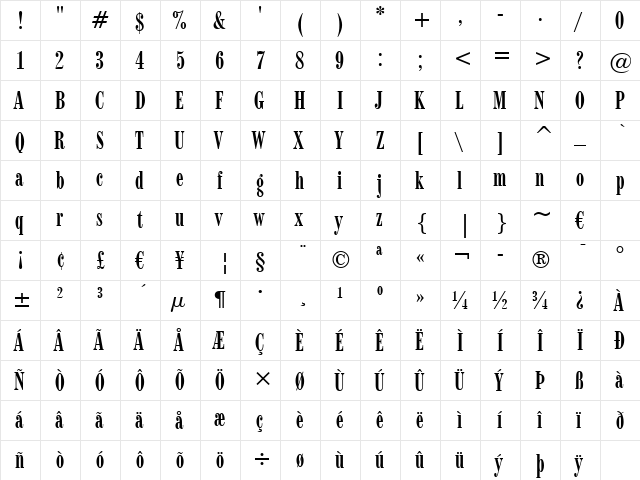
Modern735 BT Roman
Design Context for Modern735 BT Typeface
Modern735 BT takes a measured approach to typography — its balanced proportions and neutral character make it a reliable workhorse for both digital and print work.